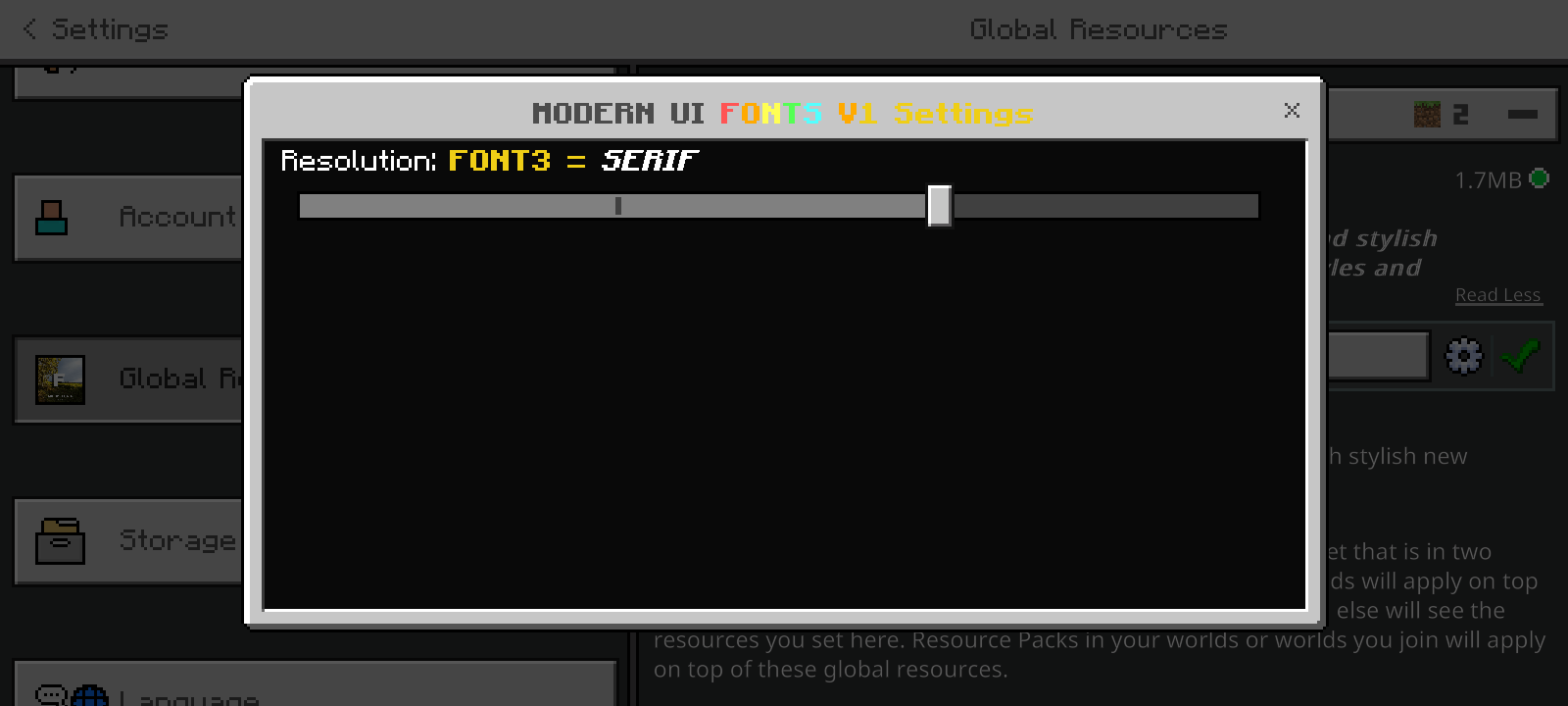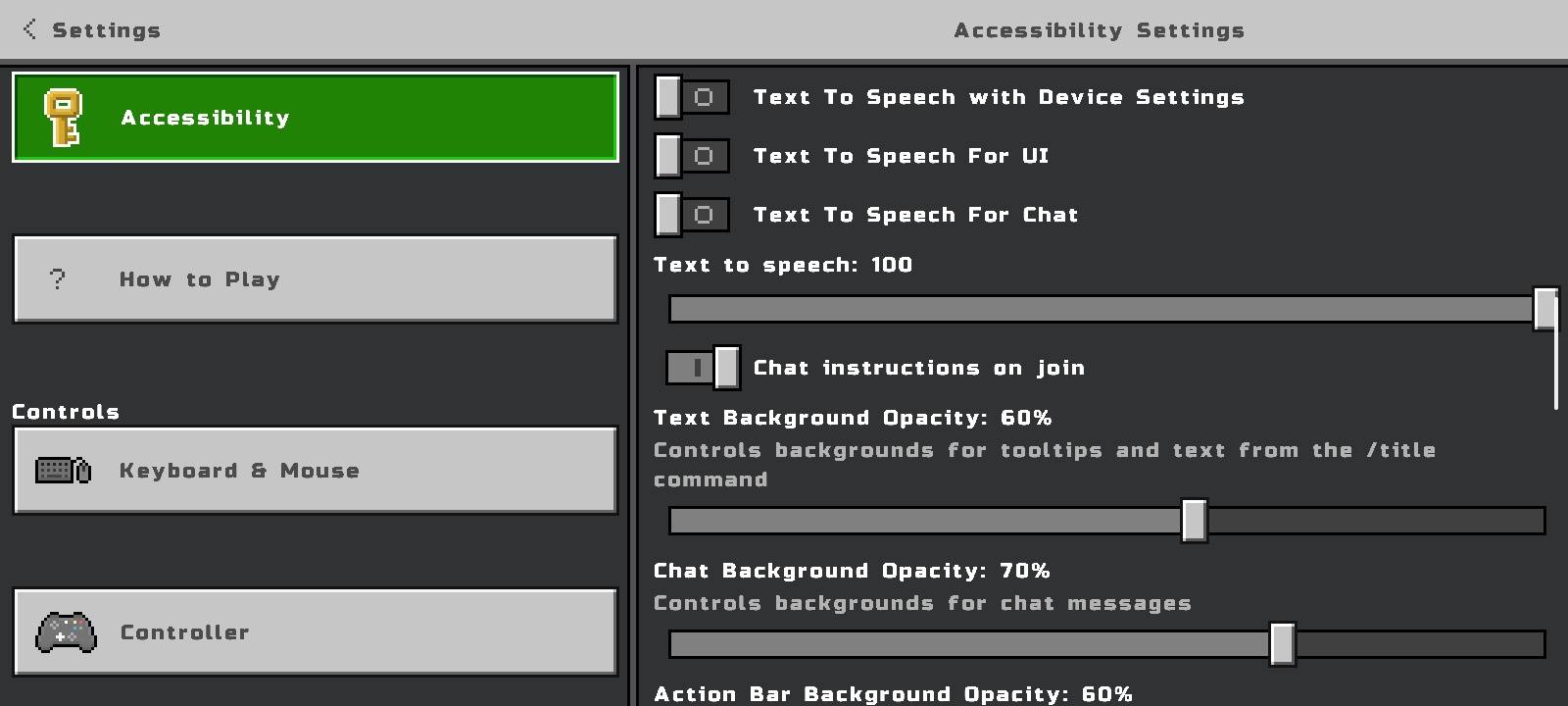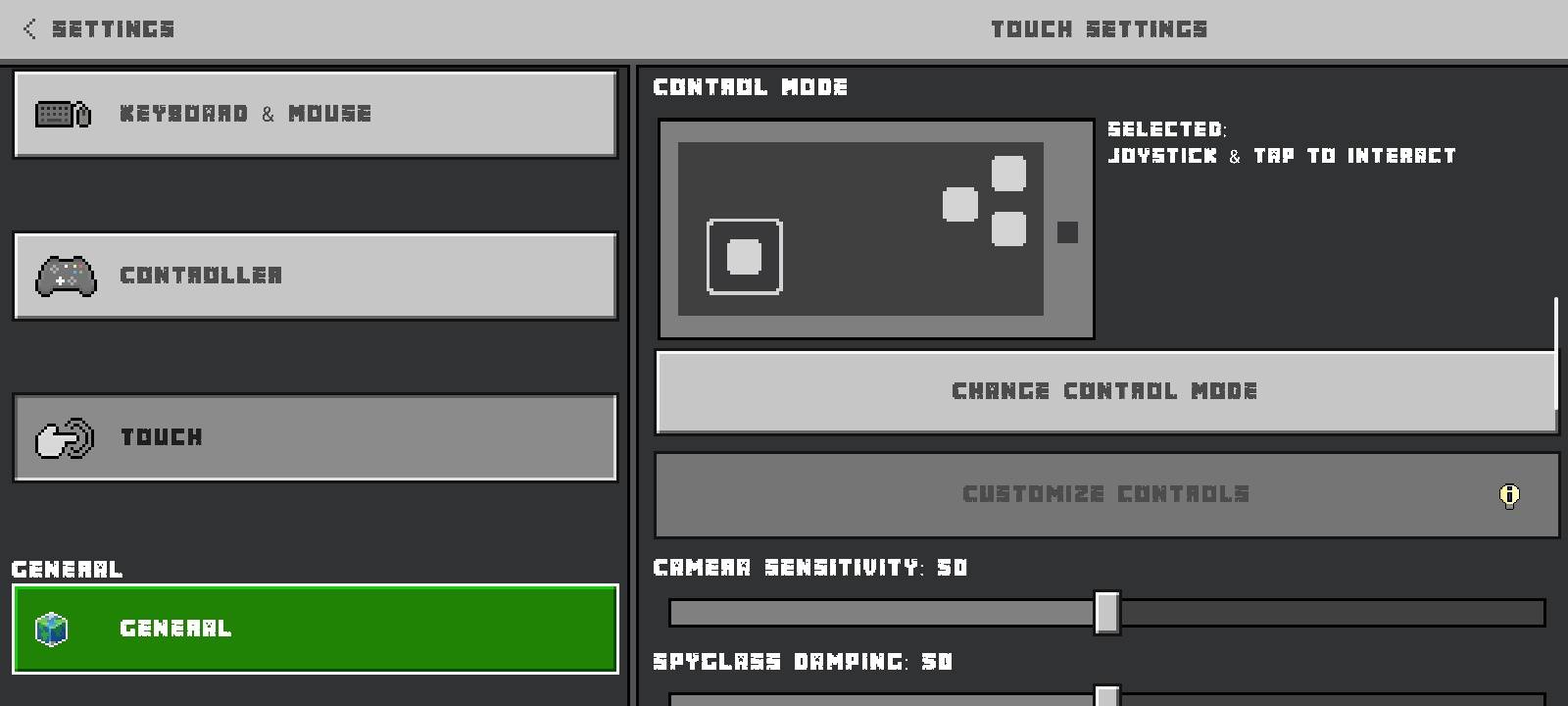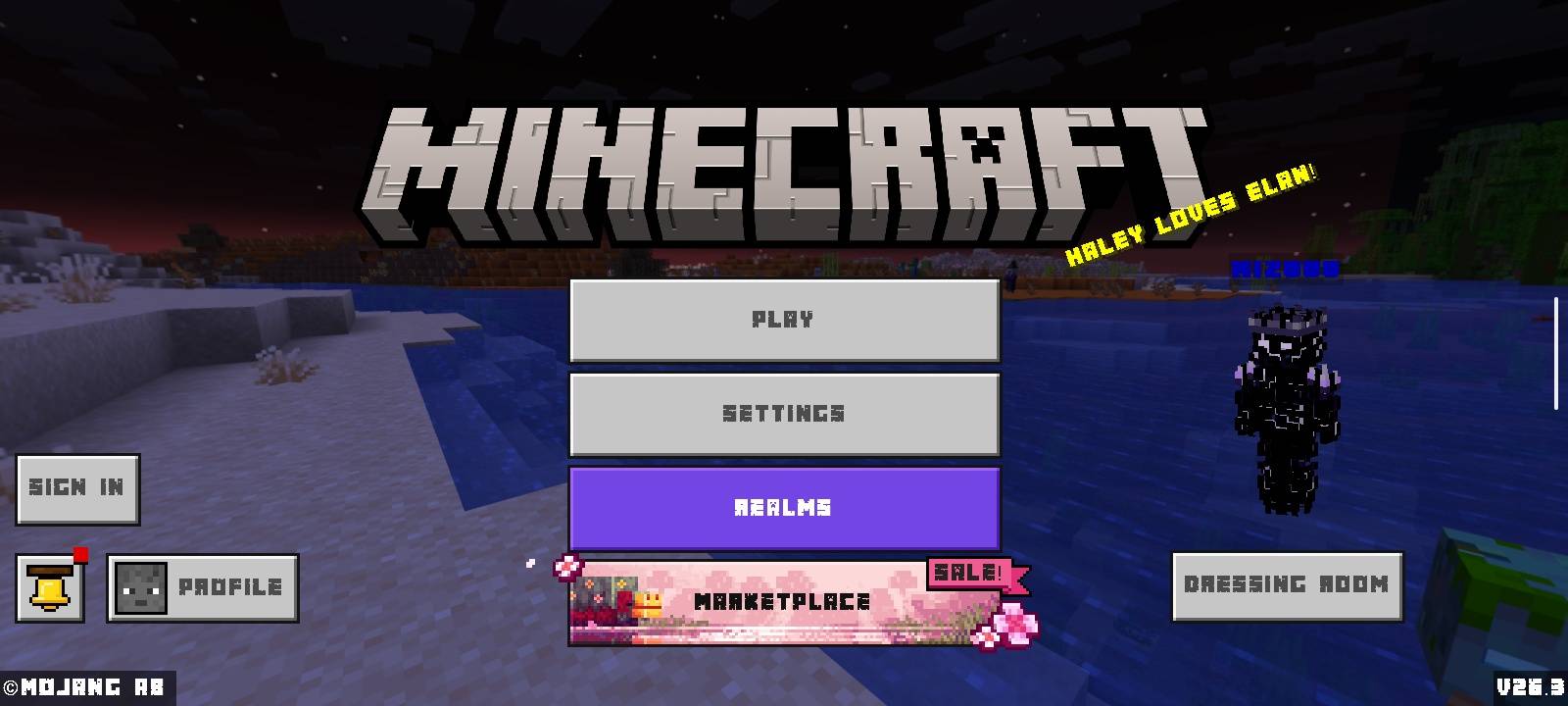
MODERN UI FONTS V1
Modern UI Fonts V1 is a lightweight font pack for Minecraft Bedrock (1.21+) that improves readability and visual style, featuring 4 unique font options to customize your game interface.
Upgrade your Minecraft Bedrock experience with Modern UI Fonts V1, a clean and visually enhanced font pack designed to improve readability and overall interface aesthetics.
This pack features multiple font styles, allowing you to choose the look that best fits your gameplay and personal style. Whether you prefer a modern, classic, or unique design, this pack provides a refreshed UI without compromising clarity.
• Clean and modern UI typography
• Improved readability across menus and chat
• Multiple font styles included (4 subpacks)
• Lightweight and optimized for performance
• Russo One
• Minecrafter
• Serif
• Comucan
Customize your Minecraft UI and enjoy a more polished and immersive experience with Modern UI Fonts V1.